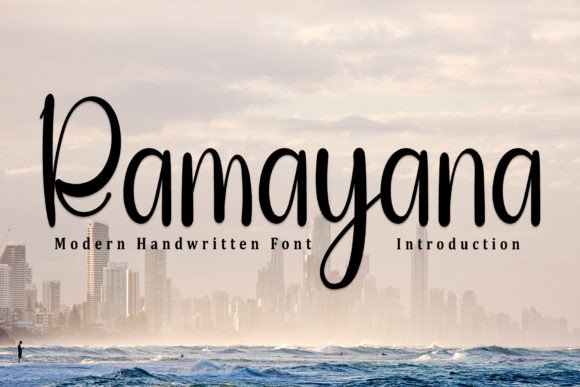
In an era where visual expression speaks volumes, introduce yourself to Ramayana Font, the script font poised to elevate your business to unprecedented heights. A creation of PiPi Creative, Ramayana embodies elegance and beauty, transforming your projects into mesmerizing masterpieces.
Step into a world of sophistication and innovation as Ramayana's distinct and timeless style unveils a spectrum of design possibilities. Its neat, flowing lines evoke a sense of grace and fluidity, capturing the essence of your brand with unwavering panache.
With Ramayana at your disposal, your projects will command attention, leaving an indelible mark on your audience. Its versatility extends beyond aesthetics, seamlessly adapting to a myriad of applications, from captivating logos and headers to enchanting invitations and brochures.
Unleash the boundless creativity within you as Ramayana becomes your font of choice for business cards that exude professionalism, social media posts that ignite engagement, and marketing materials that generate tangible results. Let Ramayana be your muse, transforming ordinary designs into extraordinary expressions.
Dive into the world of Ramayana and witness firsthand how a font can become an extension of your aesthetic vision. It's more than just a collection of characters; it's an artistic journey waiting to be embarked upon, a gateway to a world where imagination reigns supreme.
Embark on this journey today and let Ramayana's elegance elevate your designs, propelling your business to the forefront of creativity and success. Your projects, like exquisite blooms, will blossom with newfound beauty and allure.